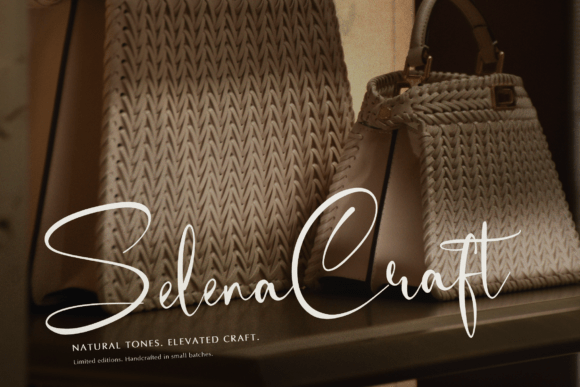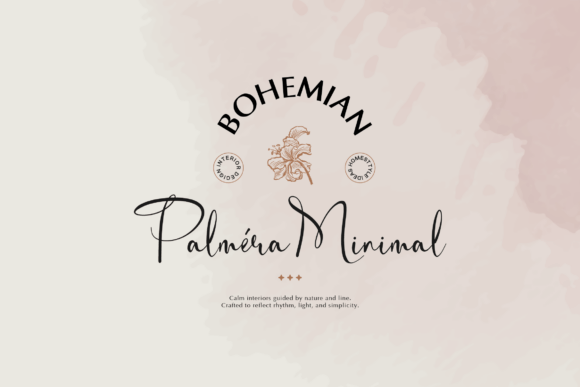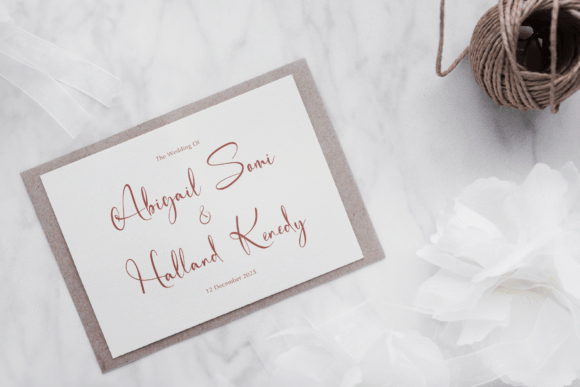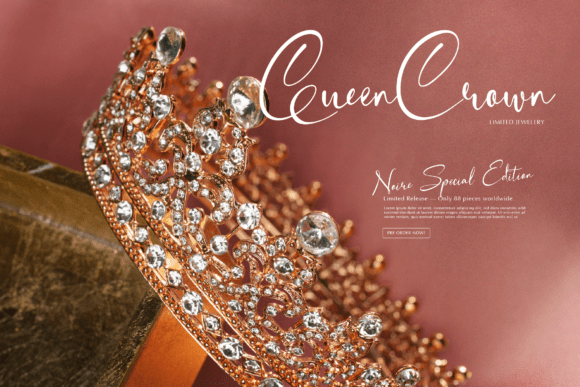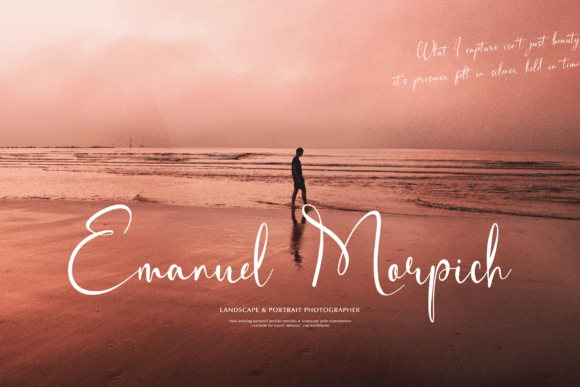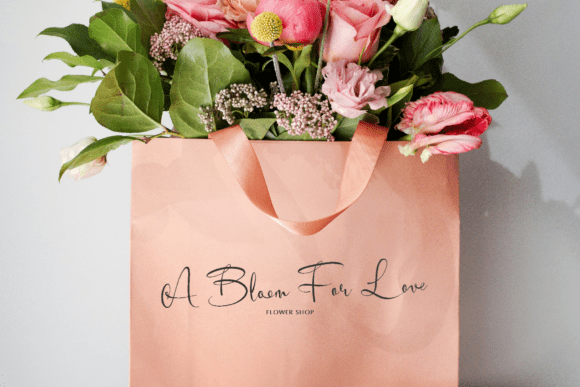
Introduction to Raeylisse Font
Raeylisse is a graceful handwritten script font that blends romance, elegance, and charm into every curve.
With over 360 glyphs, alternate characters, and multilingual support, itโs perfect for wedding invitations, feminine branding, lifestyle blogs, and heartfelt quotes Raeylisse adds a personal and polished touch wherever itโs used.
Key Features of Raeylisse Font